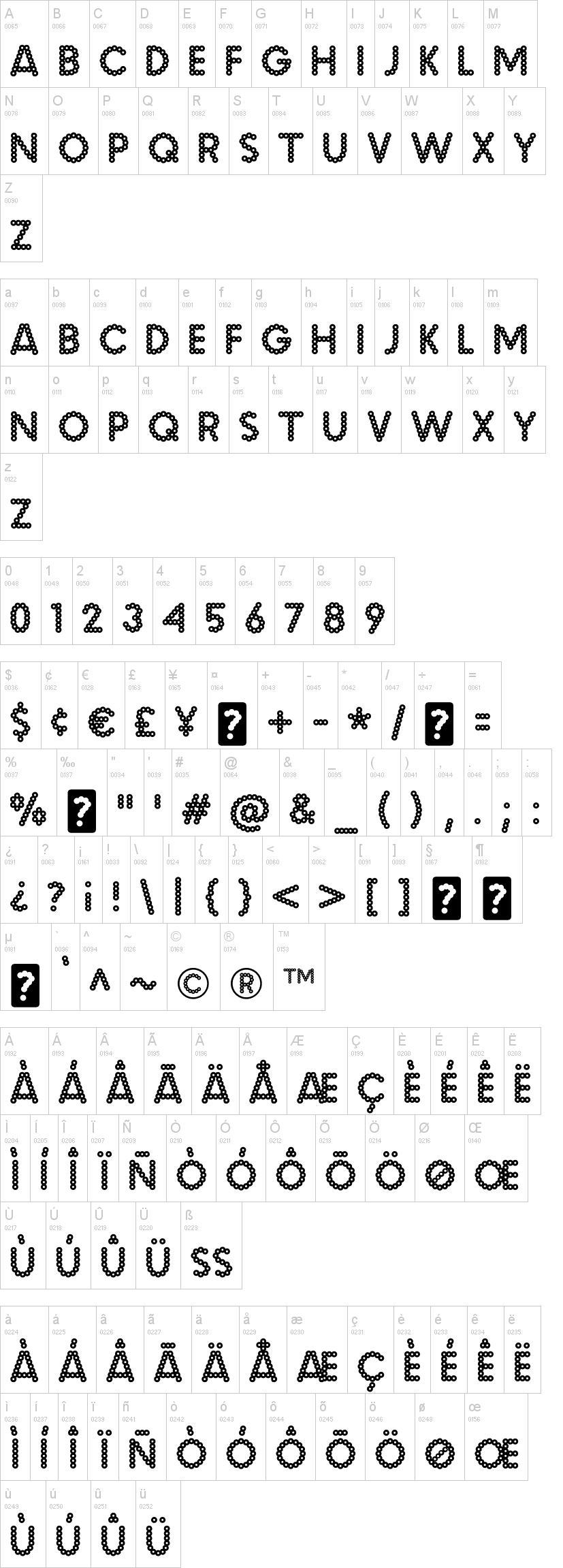
Шрифт Malache Crunch
Malache Crunch is a pierced display headliner made from connected rings. Don't forget to read the files inside the zip for details. Updated in 2012.